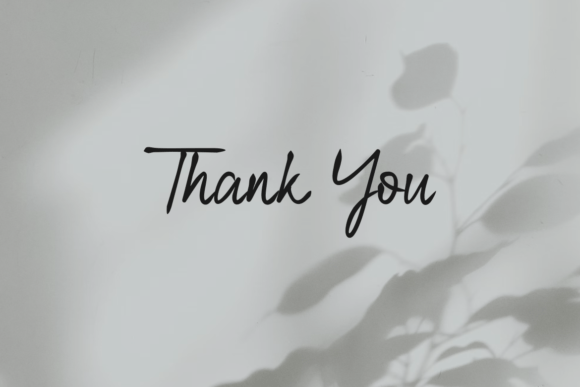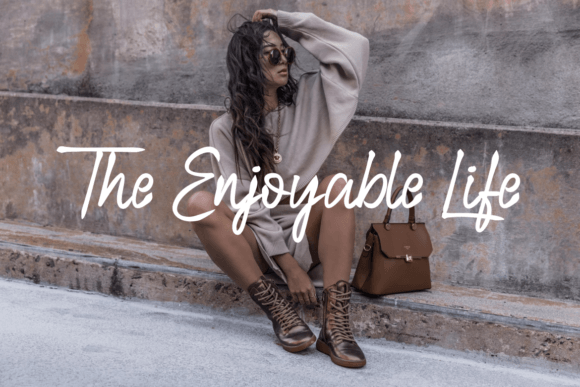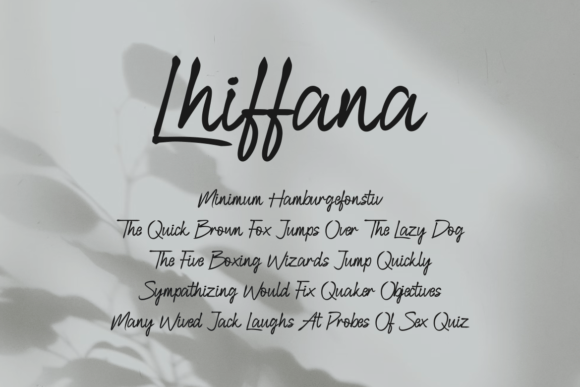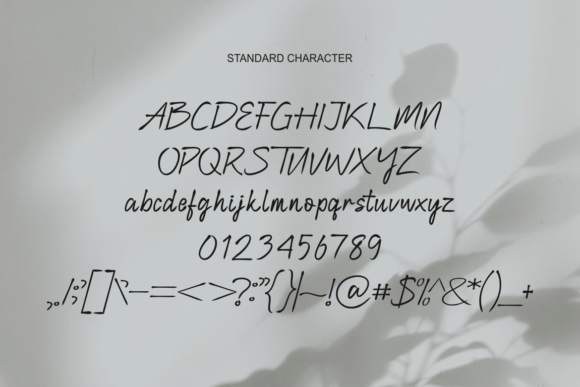
Introduction to Lhiffana Font
Lhiffana is a stylish and incredibly elegant script font.
Key Features of Lhiffana Font
Why Choose Lhiffana Font?
Lhiffana Font offers exceptional quality and versatility, making it a valuable addition to your design toolkit. Whether you’re creating for personal projects or commercial use, Lhiffana Font delivers professional results.